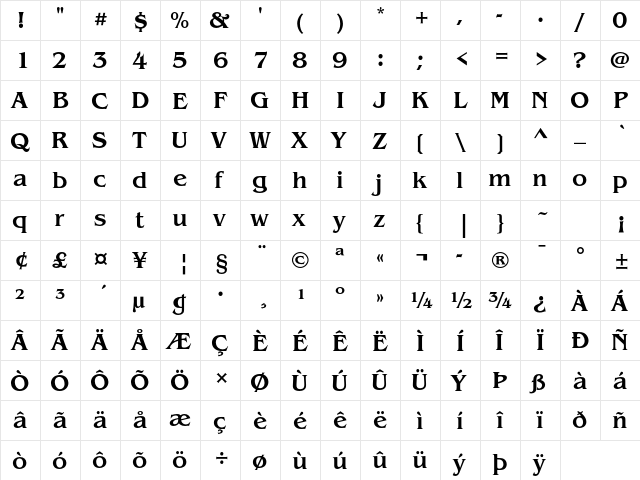
ITC Benguiat Std Medium Font Preview
ITC Benguiat Std Medium
| Designer | Ed Benguiat |
Design Context for ITC Benguiat Std Typeface
ITC Benguiat Std is a composed and adaptable typeface that performs quietly and consistently across a wide range of design contexts.